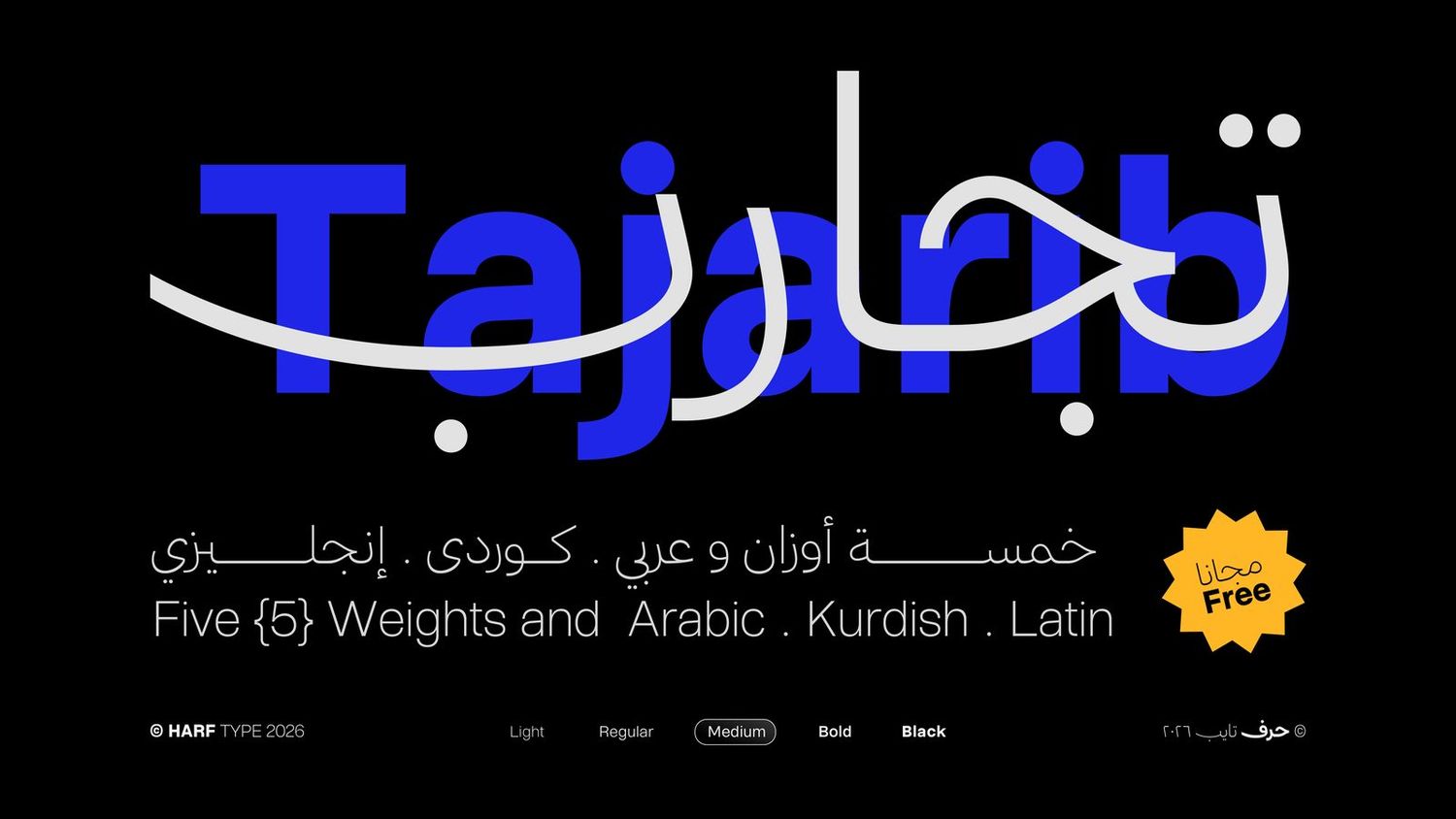
Tajareb is a contemporary Arabic typeface that balances the clarity of traditional letterforms with the simplicity of modern design. Its well-proportioned shapes and subtle details give it a distinctive presence without compromising readability.
Available in five weights, from Light to Black, Tajareb offers flexibility across a wide range of applications, from headlines and editorial layouts to branding, advertising, digital interfaces, and everyday communication.
The typeface supports Arabic, Kurdish, Persian, and Latin, making it a versatile choice for multilingual design systems and visual identities.